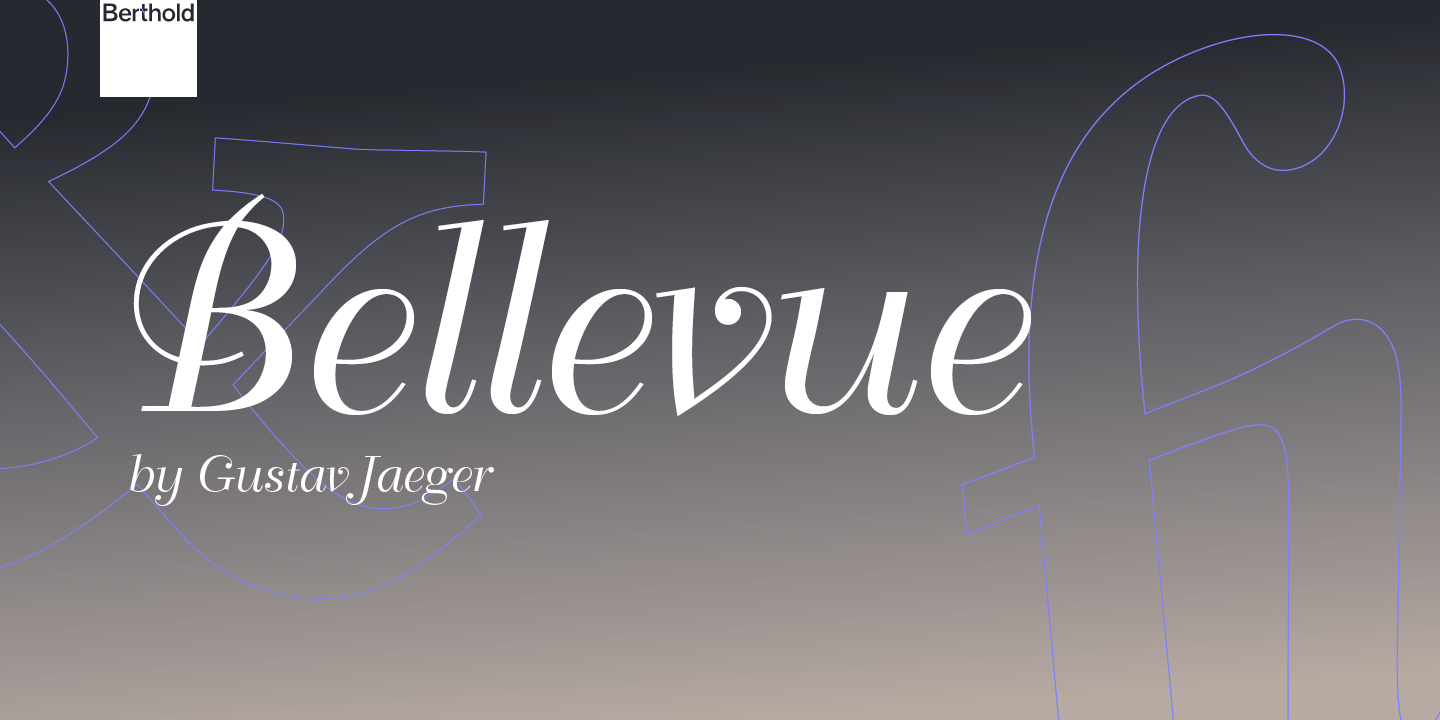
Bellevue Font is ideal for luxury hotel branding, upscale residential developments, high-end real estate marketing, prestigious country club signage, elegant event venues, sophisticated spa and wellness centers, premium hospitality services, and refined lifestyle brand communications.
What makes Bellevue Font truly exciting is its sophisticated elegance that perfectly embodies the refined luxury and timeless beauty associated with prestigious neighborhoods and upscale living through gracefully proportioned letterforms that exude wealth and distinction. This distinguished typeface features classic serif characteristics with subtle modern refinements that instantly communicate exclusivity, quality, and sophisticated taste, making it the perfect choice for brands targeting affluent audiences who demand nothing less than exceptional luxury experiences.
The Bellevue Font family encompasses thin, light, regular, medium, bold, and black weights, each available in upright and italic styles, along with elegant small caps and refined alternates that enhance the luxurious appeal, providing designers with comprehensive tools for creating prestigious brand experiences and sophisticated communications that resonate with discerning clientele.
Luxury hospitality brands and upscale service providers will find Bellevue Font Free Download essential for establishing the refined presence and sophisticated credibility needed to attract and retain high-value customers who expect impeccable quality and attention to detail. This versatile typeface excels in both intimate luxury applications and grand architectural signage, maintaining its elegant character across all prestigious contexts.
The font's refined construction demonstrates exceptional attention to both aesthetic beauty and functional excellence, with perfectly balanced proportions that ensure elegant presence while maintaining superior legibility. From luxury brochures to hotel facades, this sophisticated typeface maintains its prestigious appeal while providing the versatility needed for comprehensive luxury brand systems. Premium hospitality brands appreciate how this font effortlessly communicates refinement, exclusivity, and distinguished American luxury design excellence through superior elegant typography.